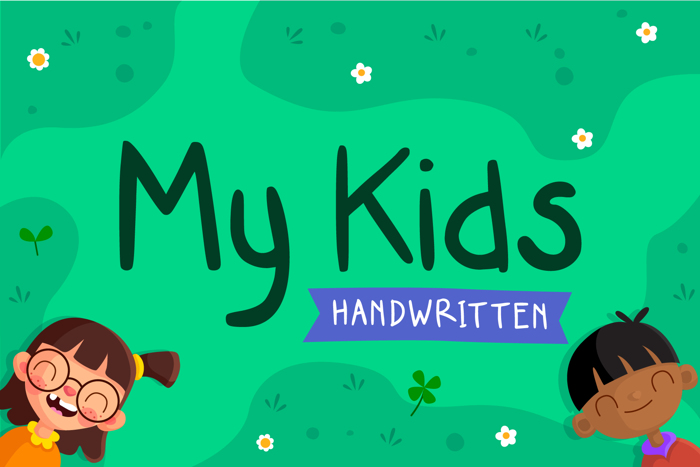
My Kids Handwritten Font
About My Kids Handwritten Font
More info from Toscadigital
My Kids Handwritten Font Handwritten style fonts, suitable for use with children's themed designs. Perfect for children's story book letter, branding projects, logo, wedding designs, social media posts, advertisements, product packaging, product designs, label, photography, watermark, invitation, stationery and any projects that need handwriting taste.